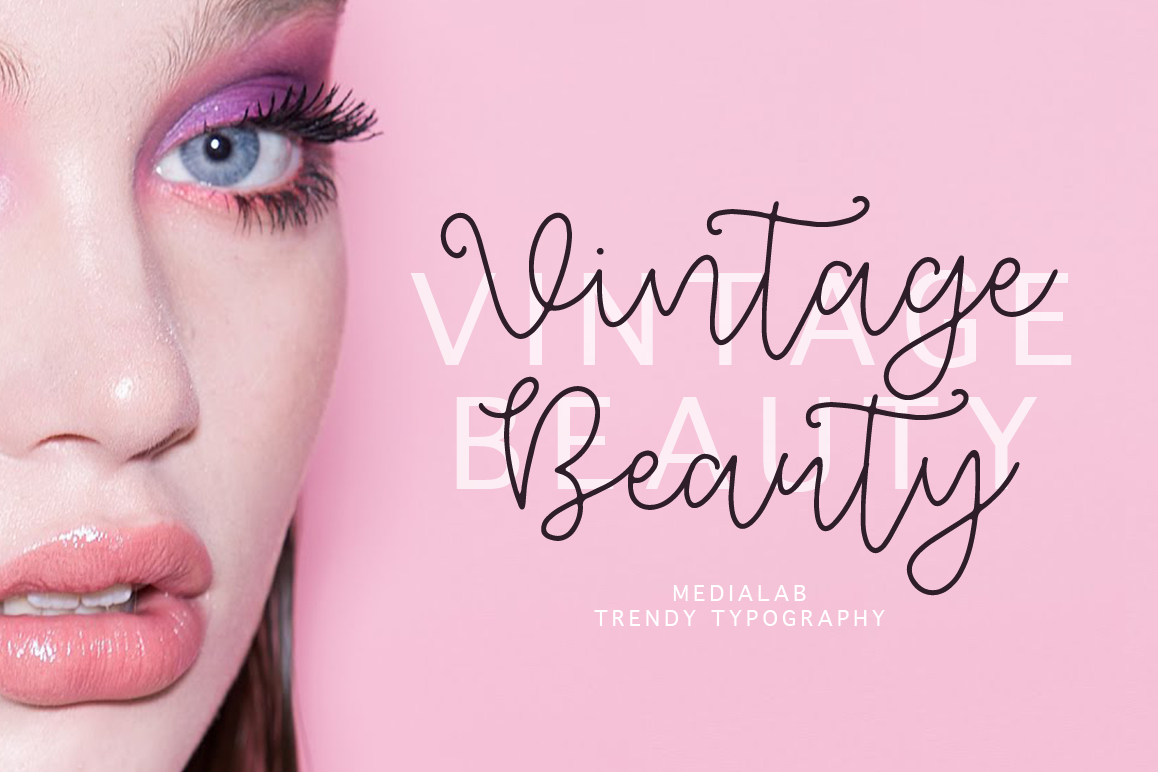
VINTAGE BEAUTY handwritten script
VintageBeauty-Regular
This modern calligraphy script  has been attentively written, with gentle curves to produce a font thats completely distinctive and original. It contains a full set of lower & uppercase letters, a large range of punctuation, numerals, and multilingual support. Perfect for adding a elegant and unique touch to your lettering projects and branding*